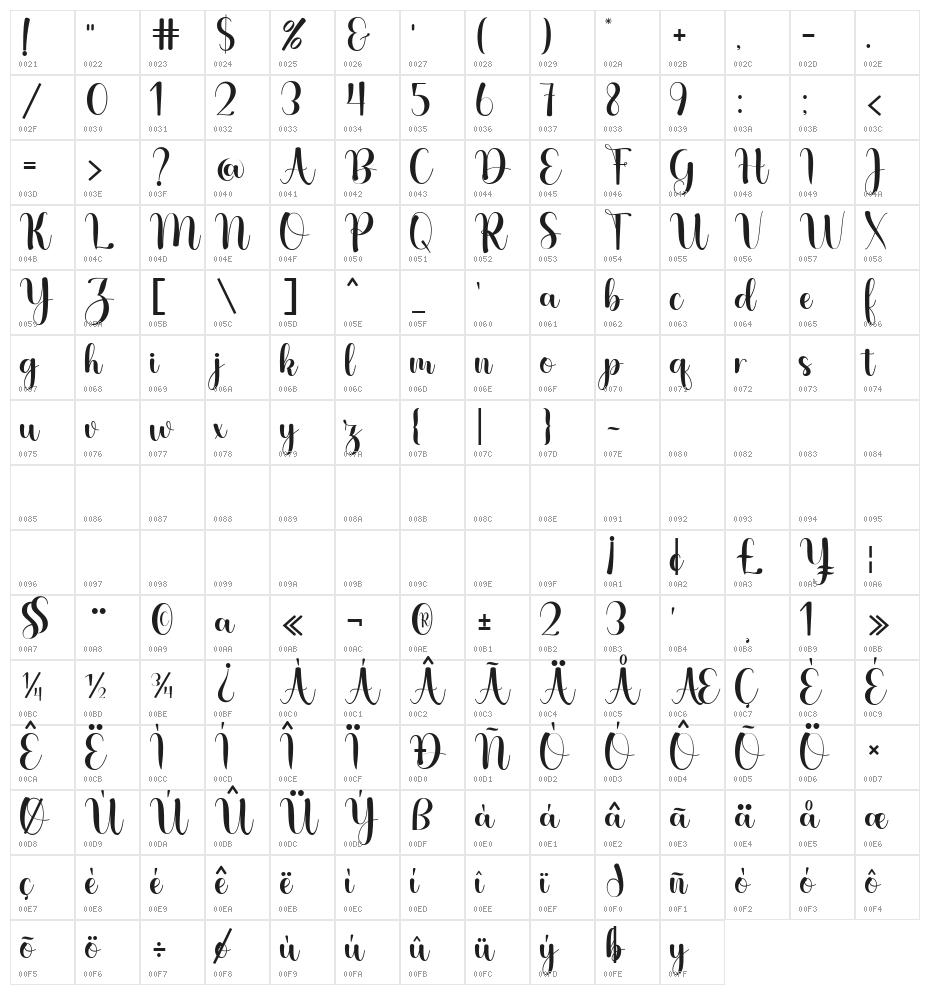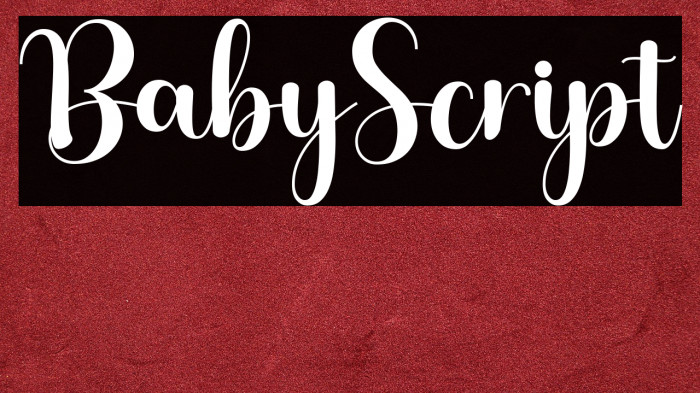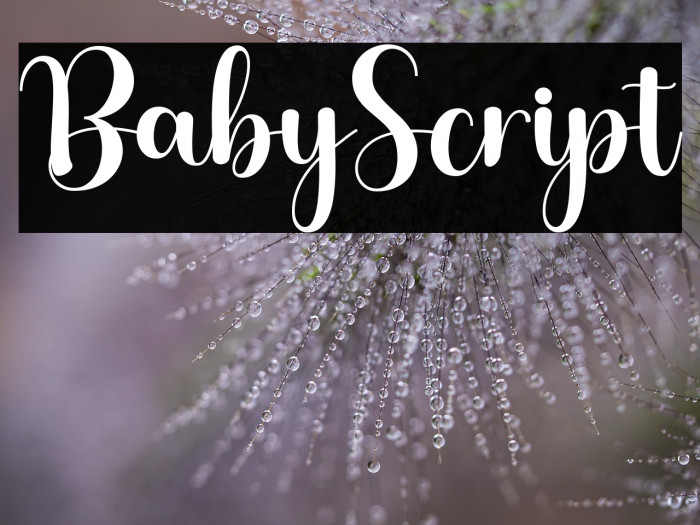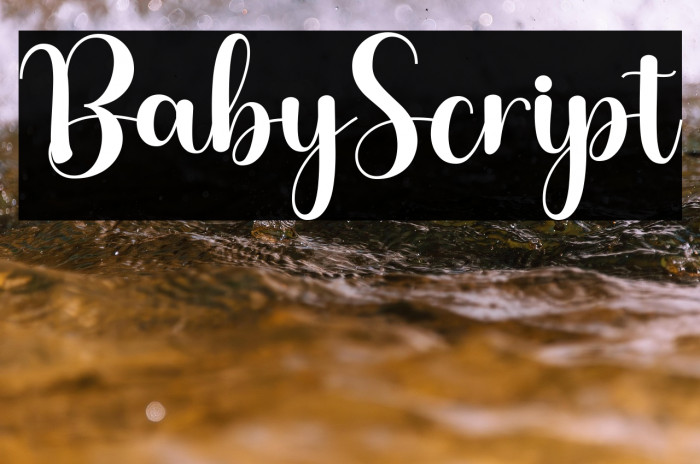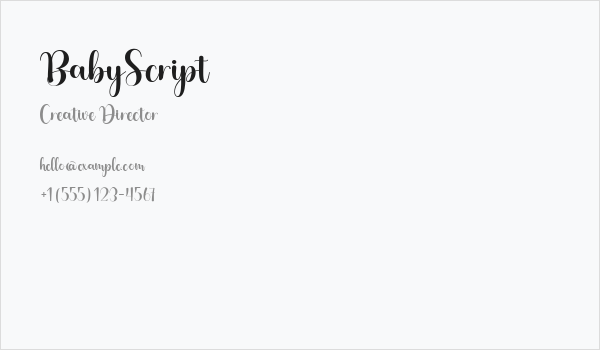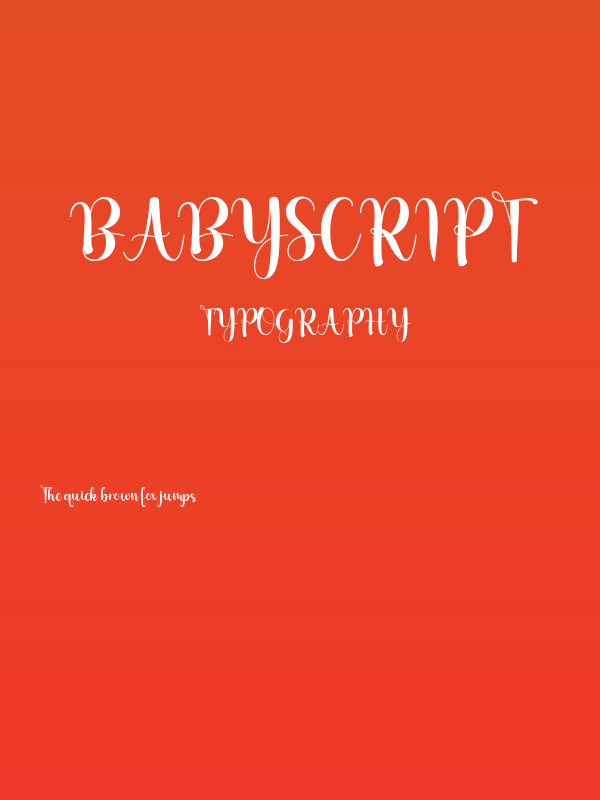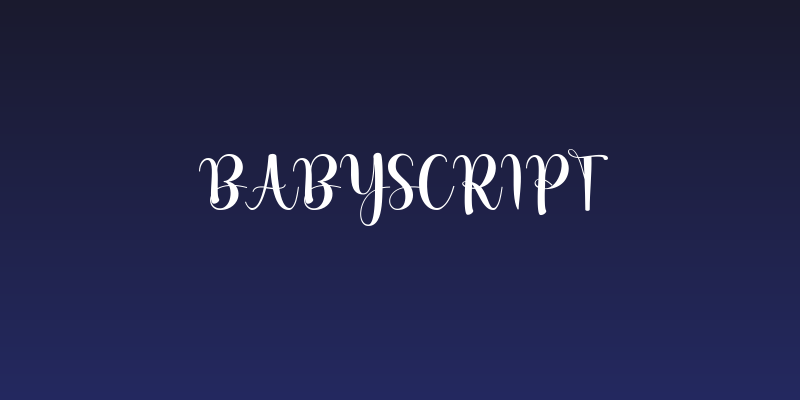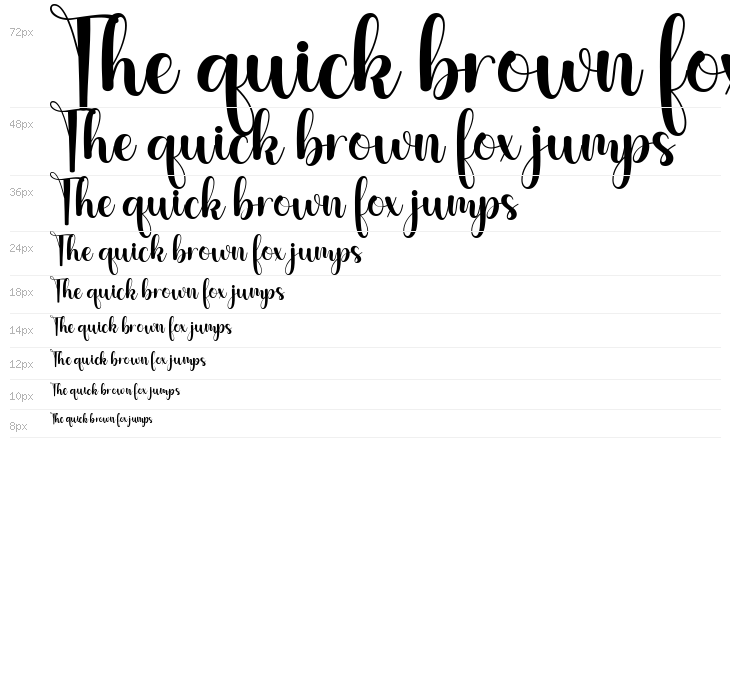
BabyScript Font
BabyScript Description
This font features a playful and elegant script style, characterized by its flowing, cursive letters that exude a sense of whimsy and charm. The uppercase letters are tall and slender, with graceful loops and swirls that add a decorative touch. The lowercase letters maintain a consistent flow, with rounded forms and smooth connections between characters. The numerals are bold and slightly rounded, complementing the overall aesthetic. Special characters are thoughtfully designed, maintaining the font's cohesive style. This font is perfect for projects that require a touch of elegance and personality.
| Use Case | Logos, Invitations, Greeting Cards |
| Proposed Projects | Ideal for wedding invitations, greeting cards, branding, and logo design. |